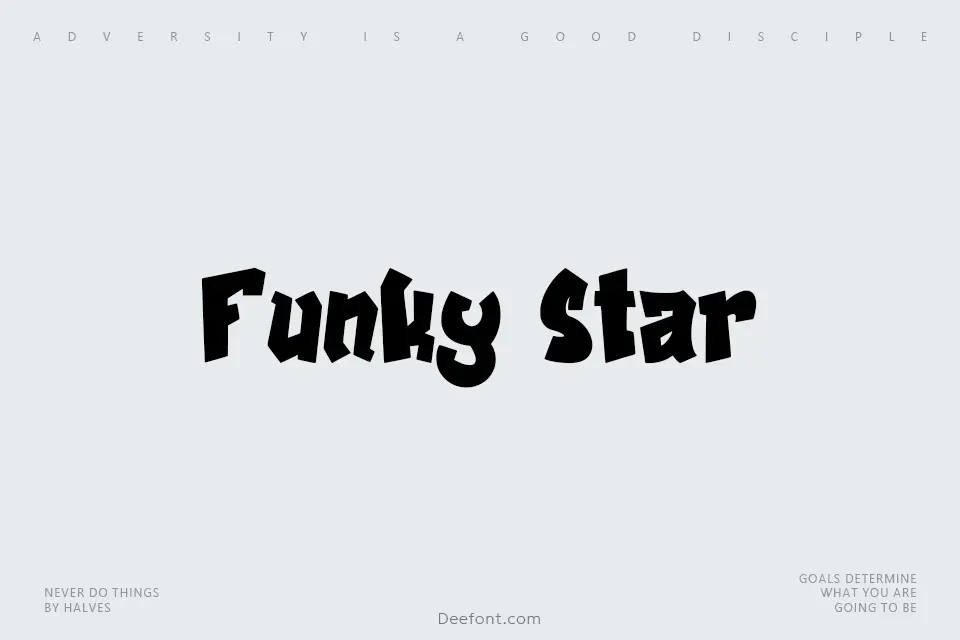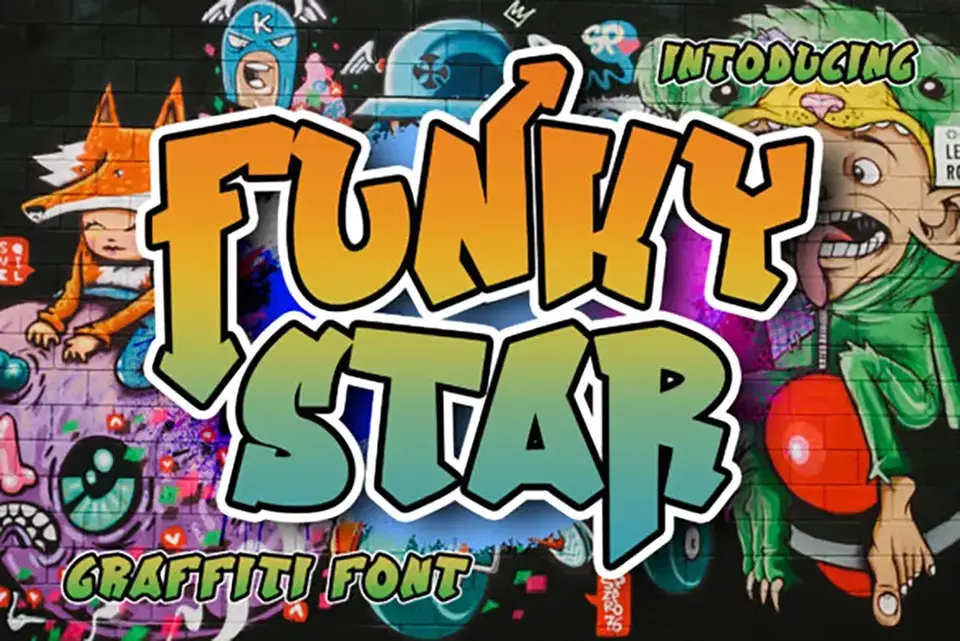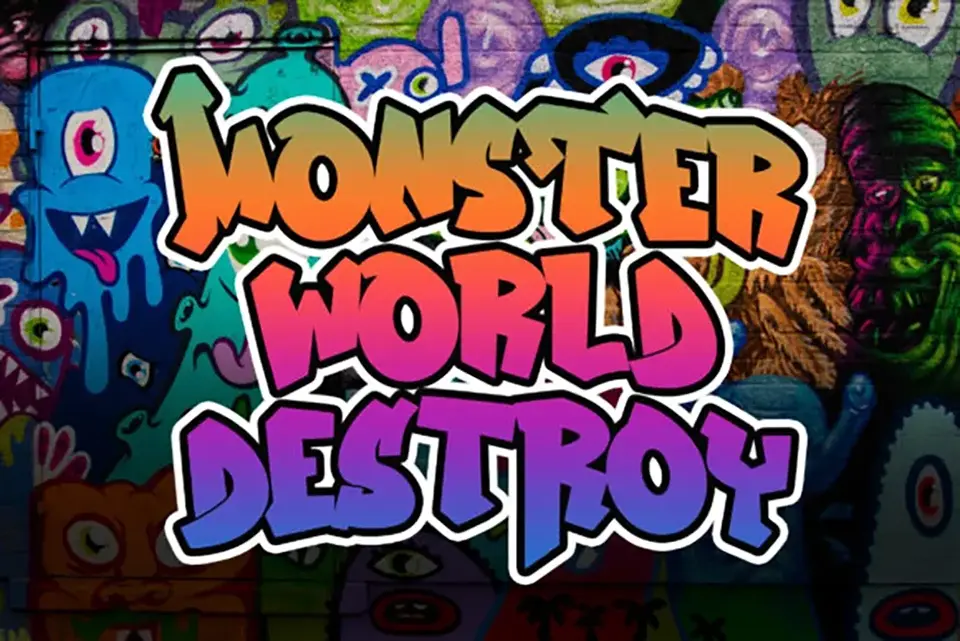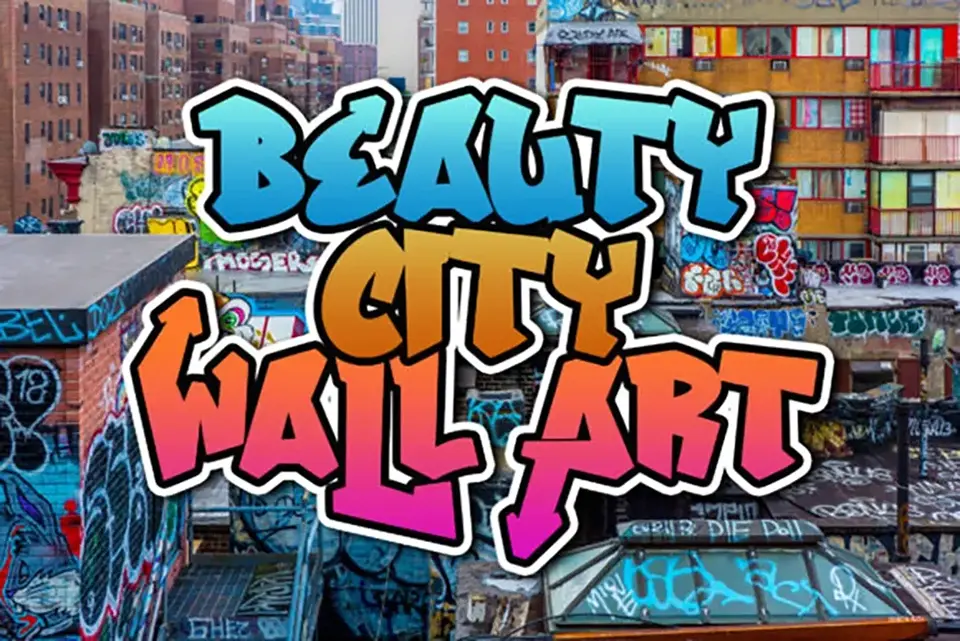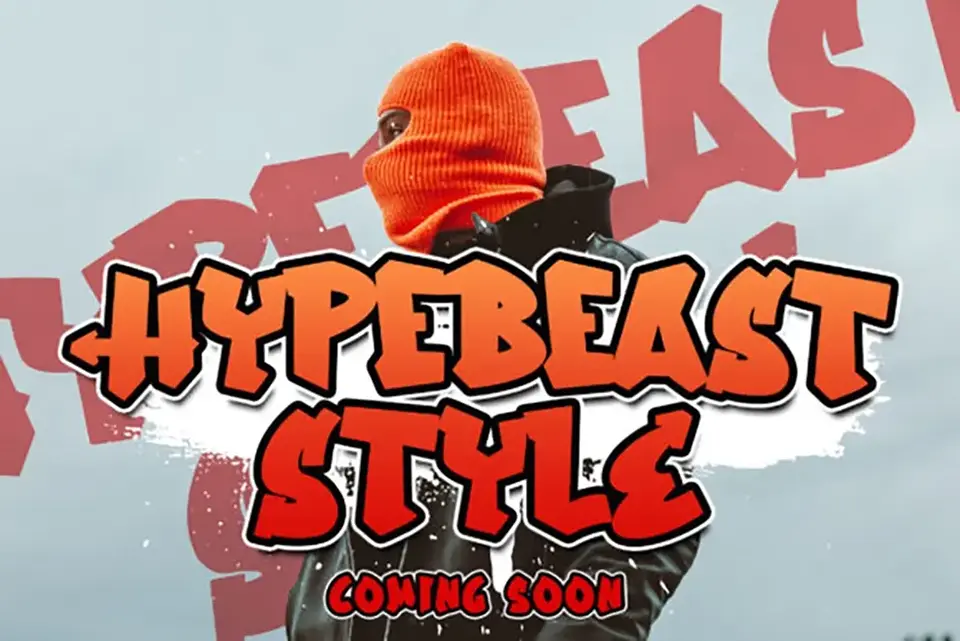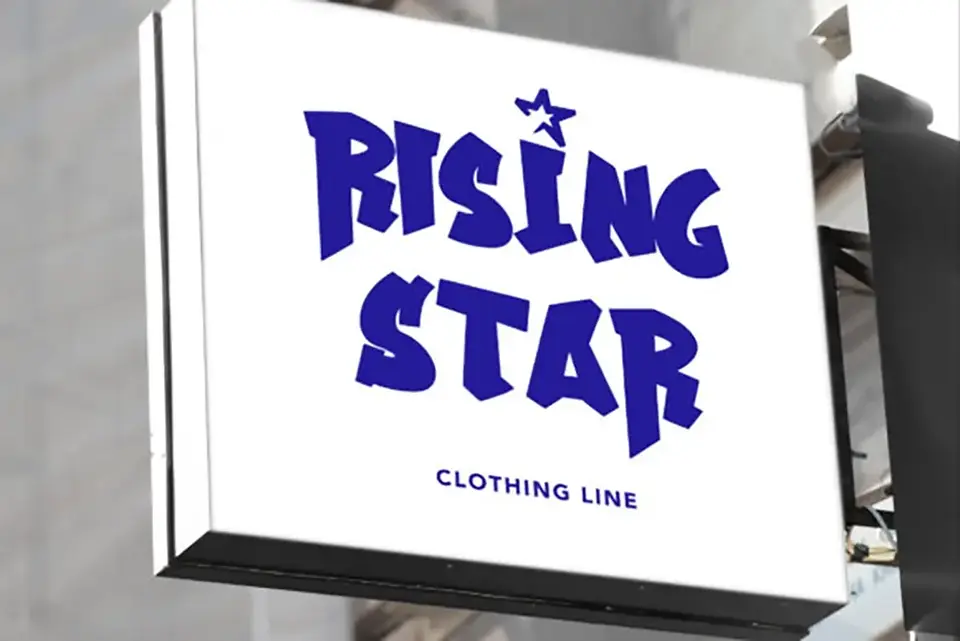
Funky Star Font
Funky Star is a vibrant graffiti-style display font that captures the rebellious spirit of urban street art. Designed with bold and expressive characters, this eye-catching typeface exudes playful energy and contemporary flair, making it perfect for headlines, music event posters, streetwear branding, and creative advertisements. The dynamic forms and exaggerated features bring life to any project, delivering an impactful punch that resonates with modern culture. With its unique character set and distinctive personality, Funky Star invites individuality and creativity, allowing designers to craft unforgettable visual communications.